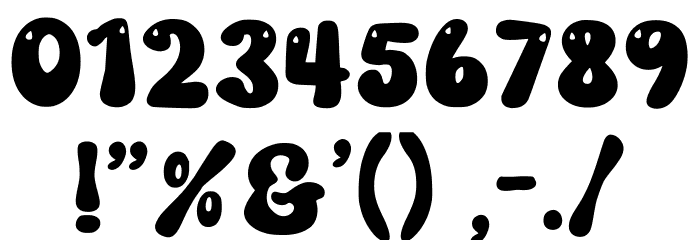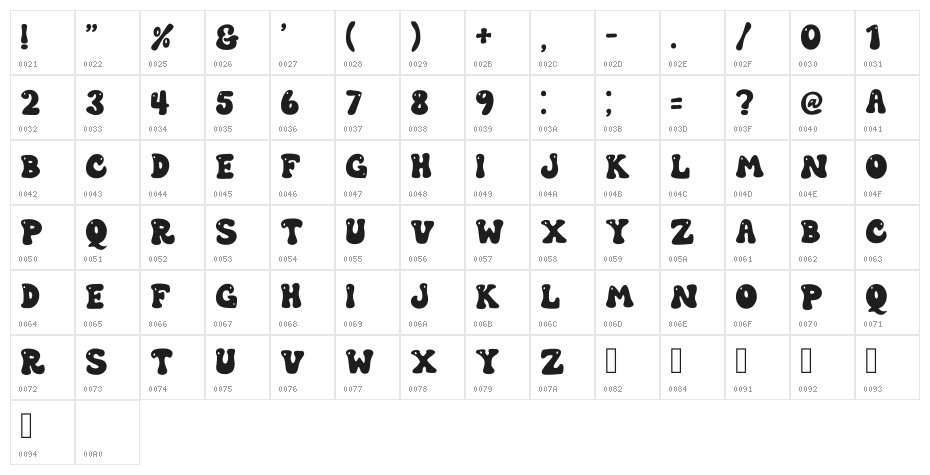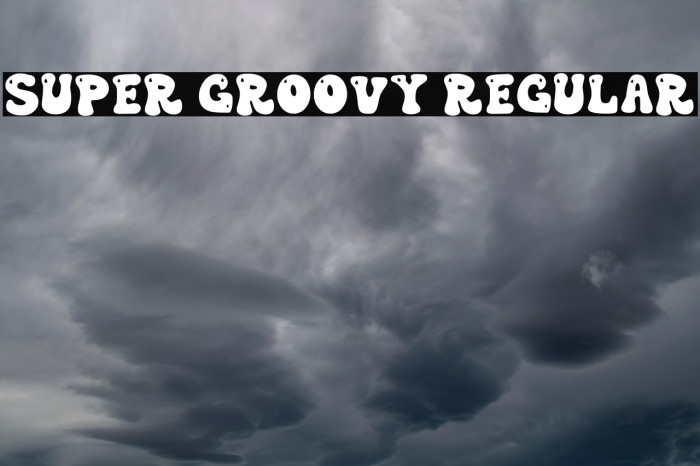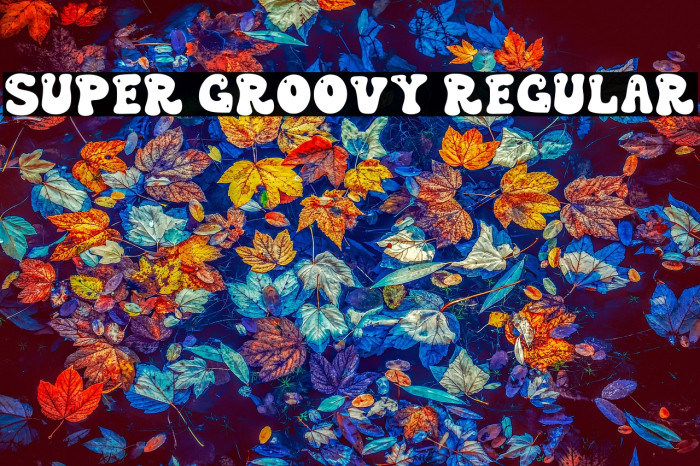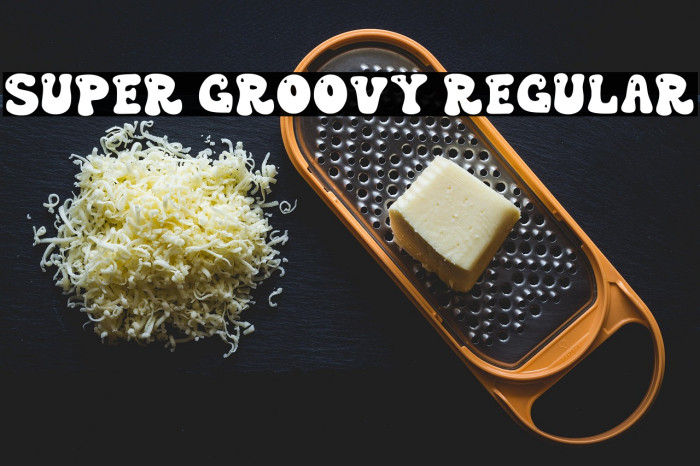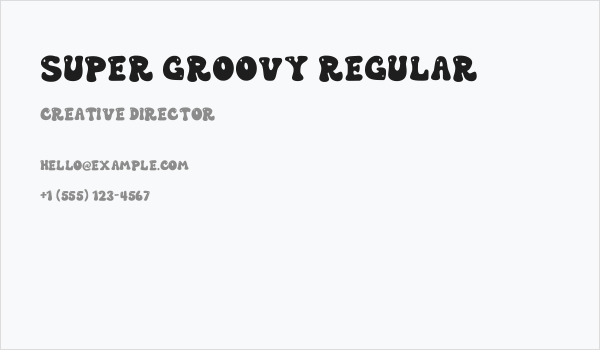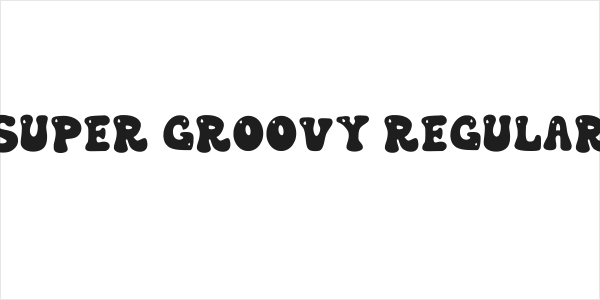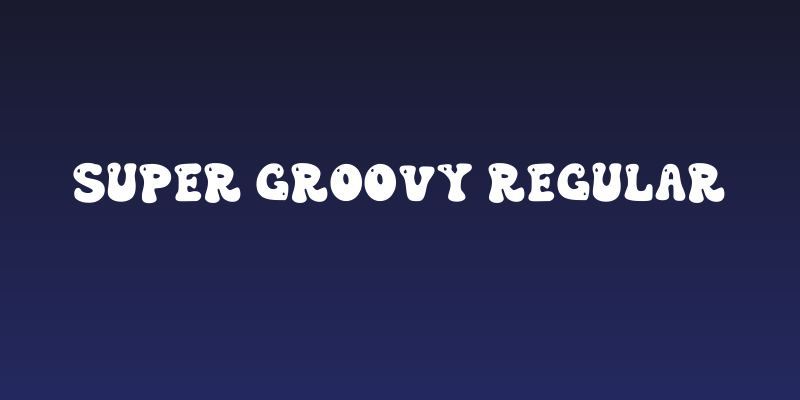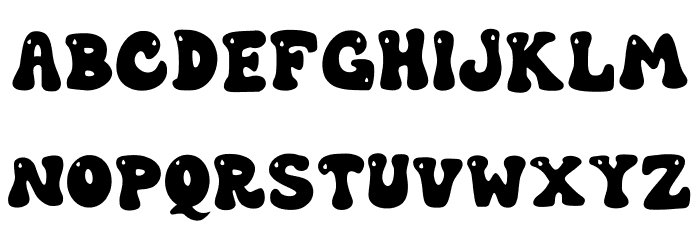
Super Groovy Regular Font
Super Groovy Regular Description
This font exudes a playful and retro vibe, characterized by its bold and rounded letterforms. Each character is designed with a bubbly, almost cartoonish style that evokes a sense of fun and nostalgia. The letters are thick and have a consistent weight throughout, with smooth curves and a slightly irregular shape that adds to its quirky charm. The numbers and special characters follow the same design ethos, ensuring a cohesive look across all elements. This font is perfect for projects that aim to capture a vintage or whimsical aesthetic.
| Proposed Projects | Ideal for retro-themed posters, children's book covers, playful branding, and party invitations. |